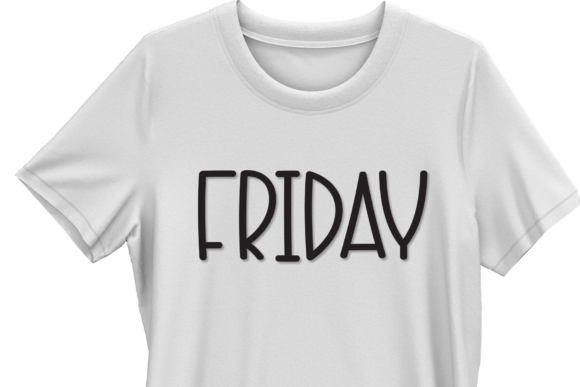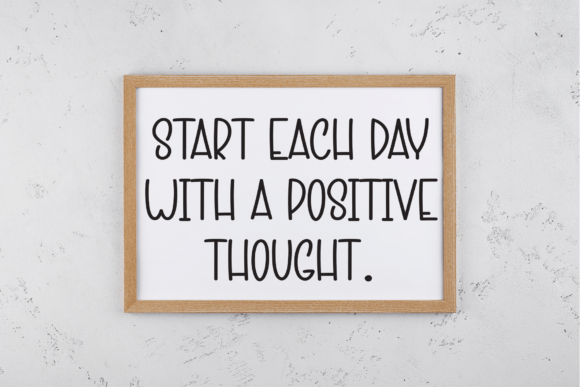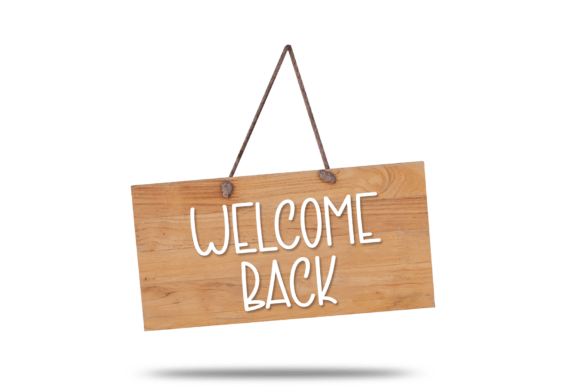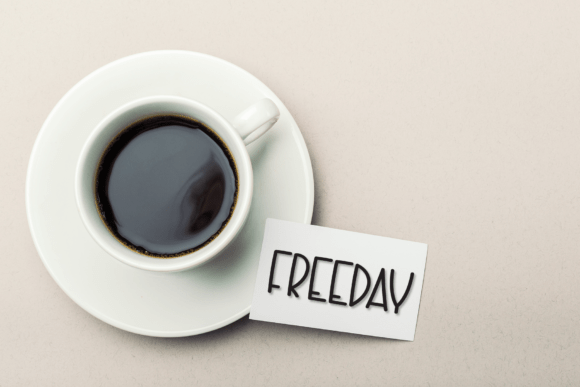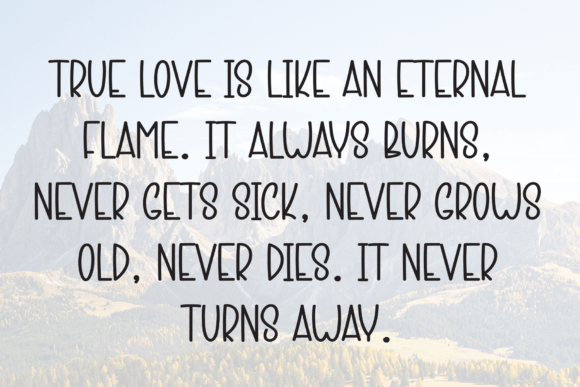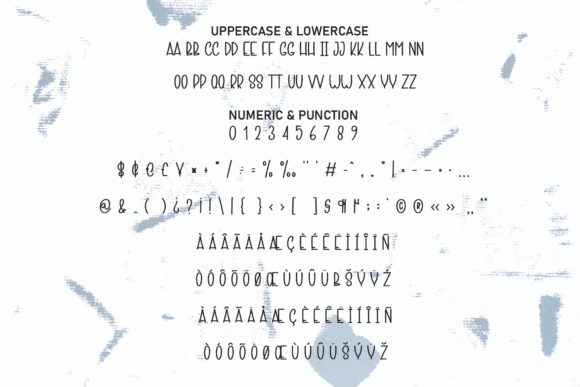
Introduction to Simple Scratces Font
Have you ever found yourself staring at a blank page, struggling to bring your creative vision to life? You’re not alone. As a designer, there’s nothing quite like the thrill of bringing a new project to life. But sometimes, all it takes is the right tool to spark that initial spark of inspiration. That’s where the Simple Scratces Font comes in – a game-changing design resource that’s sure to elevate your creative project to the next level.
Whether you’re working on a high-profile advertising campaign or a personal project, the Simple Scratces Font is the perfect addition to your design arsenal. With its high-quality, transparent background, this free download is perfect for designers who crave a little extra flair in their work. And the best part? It’s ridiculously easy to use, thanks to its seamless integration with popular design software like Adobe Illustrator and Photoshop.
So why settle for anything less when you can have the Simple Scratces Font? This incredible resource is available for free download, and its versatility makes it the perfect choice for any design project that requires a touch of sophistication and style.
Key Features of Simple Scratces Font
- High-quality design: The Simple Scratces Font is crafted with precision and attention to detail, ensuring a professional look in your design.
- Transparent background: This font features a transparent background, allowing for seamless integration with your design and easy customization.
- Vector-based design: The font is designed as a vector-based resource, ensuring scalability and crisp resolution regardless of size or resolution.
- Perfect for creative projects: Simple Scratces Font is ideal for use in creative projects, such as logos, graphics, and typography-based designs.
Honest Review: Simple Scratces Font
I recently stumbled upon the Simple Scratces Font and I must say, it’s been a great addition to my design resource library. As a designer, I’m always on the lookout for high-quality fonts that can elevate my creative projects.
The Simple Scratces Font offers a clean and minimalist aesthetic, making it perfect for a variety of designs, from logos to brochures. I particularly love the fact that it’s available for free download, which is a huge plus for designers on a budget.
- ✨ Transparent background, allowing for easy use in various design scenarios
- ⚠️ Limited font styles and variations, which might not be ideal for designers looking for a wide range of options
- ⚠️ Not suitable for complex or professional-grade designs, due to its minimalist nature
Overall, I’m impressed with the Simple Scratces Font and I would definitely recommend it to fellow designers. While it may have some limitations, its high-quality design and free download make it a great resource to have in your library.
Use the Simple Scratces Font in conjunction with other design elements to create a visually appealing design. Experiment with different font sizes and styles to add depth and interest to your project.
The Simple Scratces Font is ideal for use in logos, branding materials, and other creative projects where a unique and eye-catching font is required. Its transparent background makes it easy to use in a variety of design contexts.
Does the Simple Scratces Font have a transparent background?
Yes, the Simple Scratces Font has a transparent background, making it ideal for use on various design elements, such as icons, logos, and graphics. This feature allows you to easily layer the font over other design elements without compromising the overall appearance of your project.